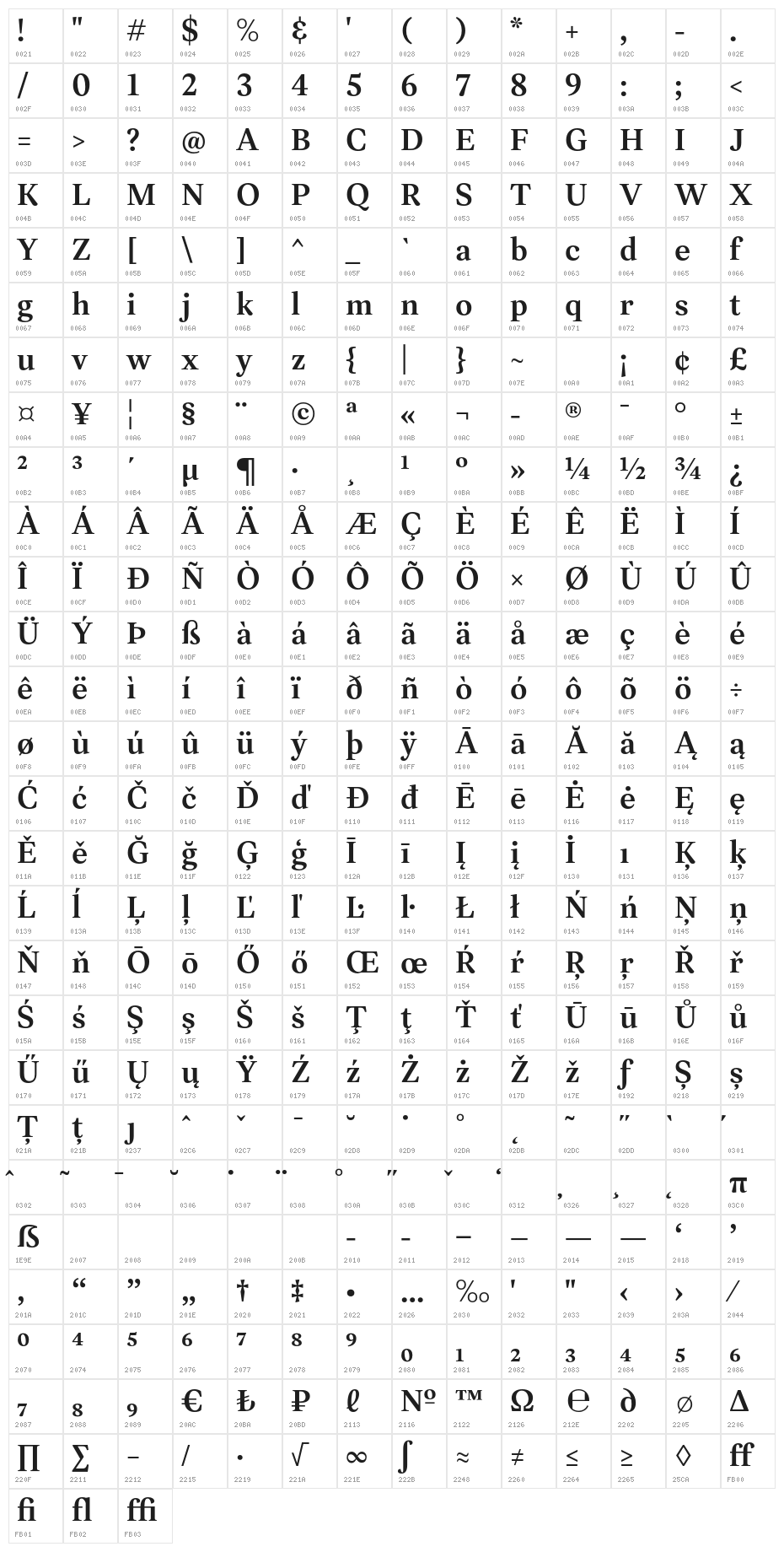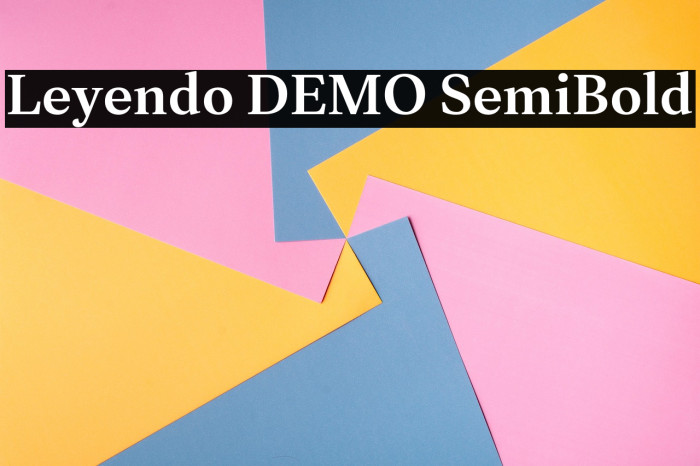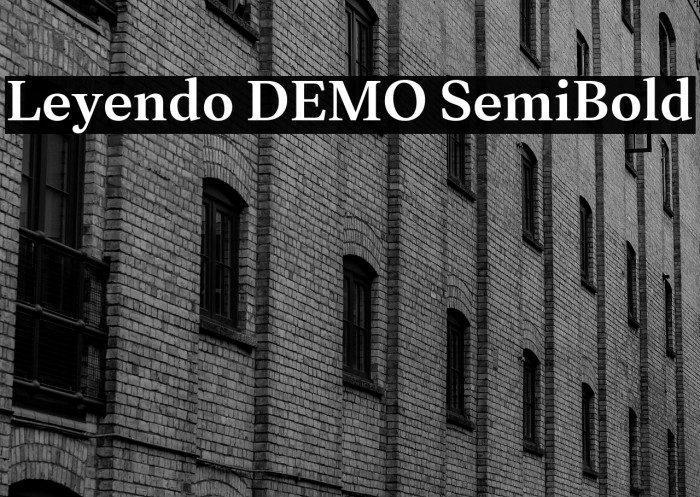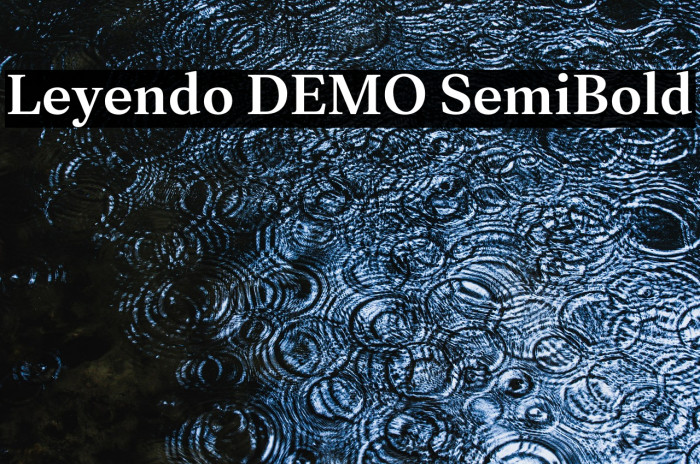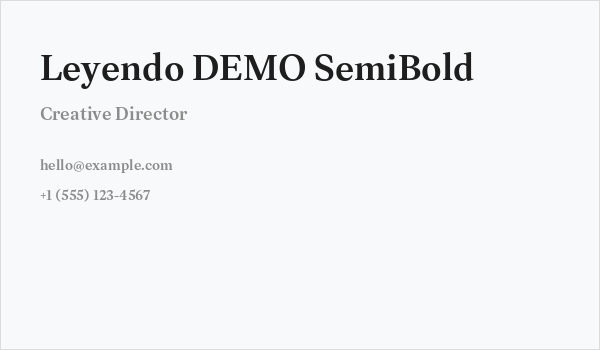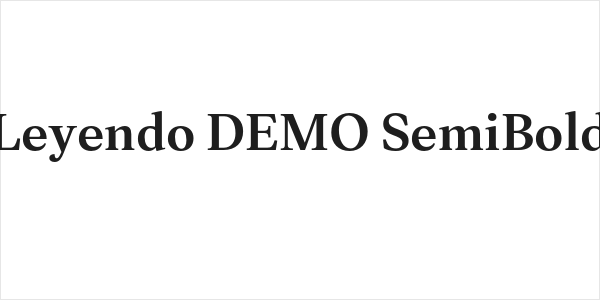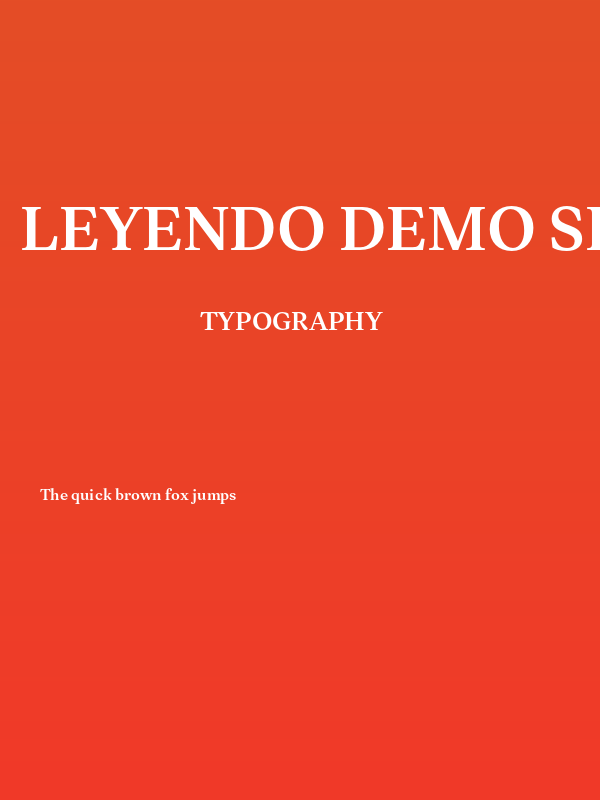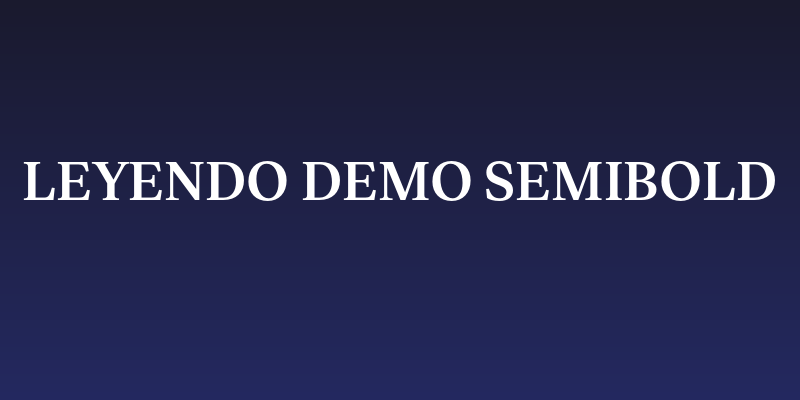
Leyendo DEMO SemiBold Font
Leyendo DEMO SemiBold Description
This font features a classic serif style with a robust and authoritative presence. The characters are well-defined with sharp serifs, providing a traditional yet modern feel. The uppercase letters are bold and commanding, while the lowercase letters maintain a consistent and readable form. Numbers are clear and distinct, making them suitable for various applications. The special characters are elegantly designed, maintaining the overall aesthetic of the font. This font is versatile, suitable for both digital and print media, offering a timeless elegance that enhances readability and visual appeal.
| Proposed Projects | Ideal for editorial design, book covers, formal invitations, and branding projects. |